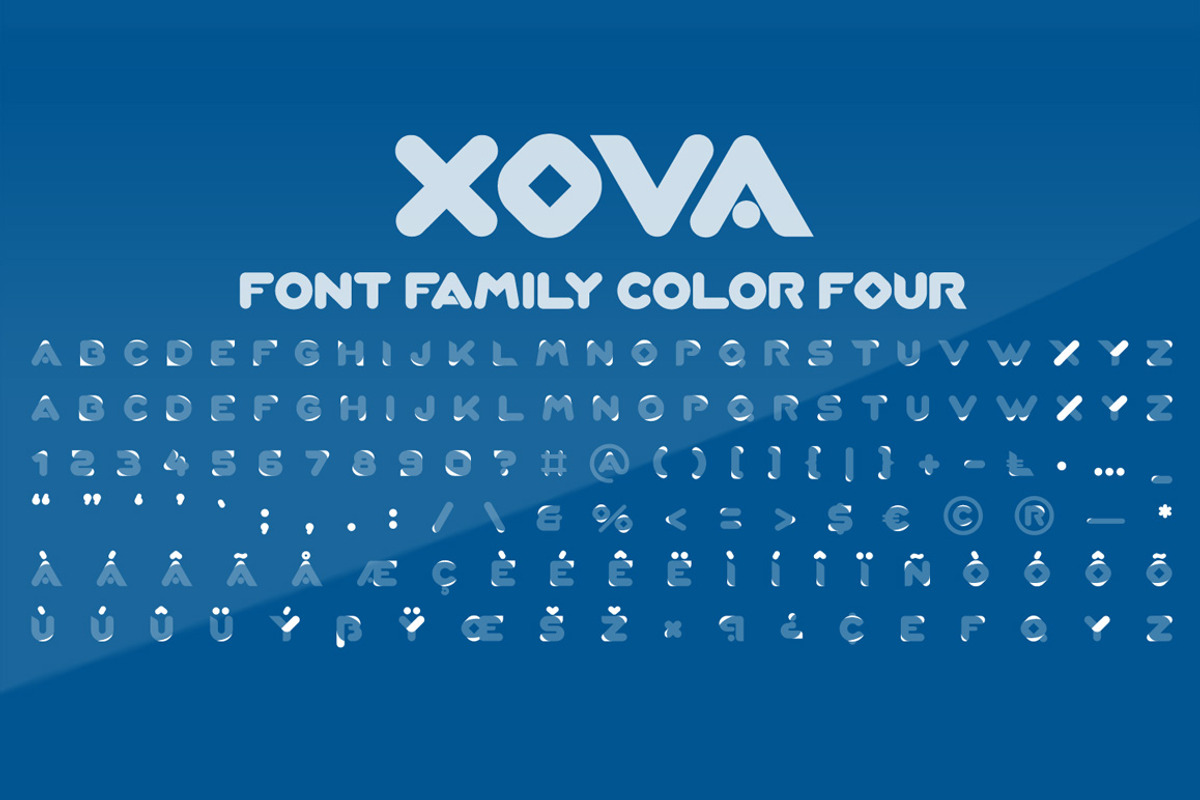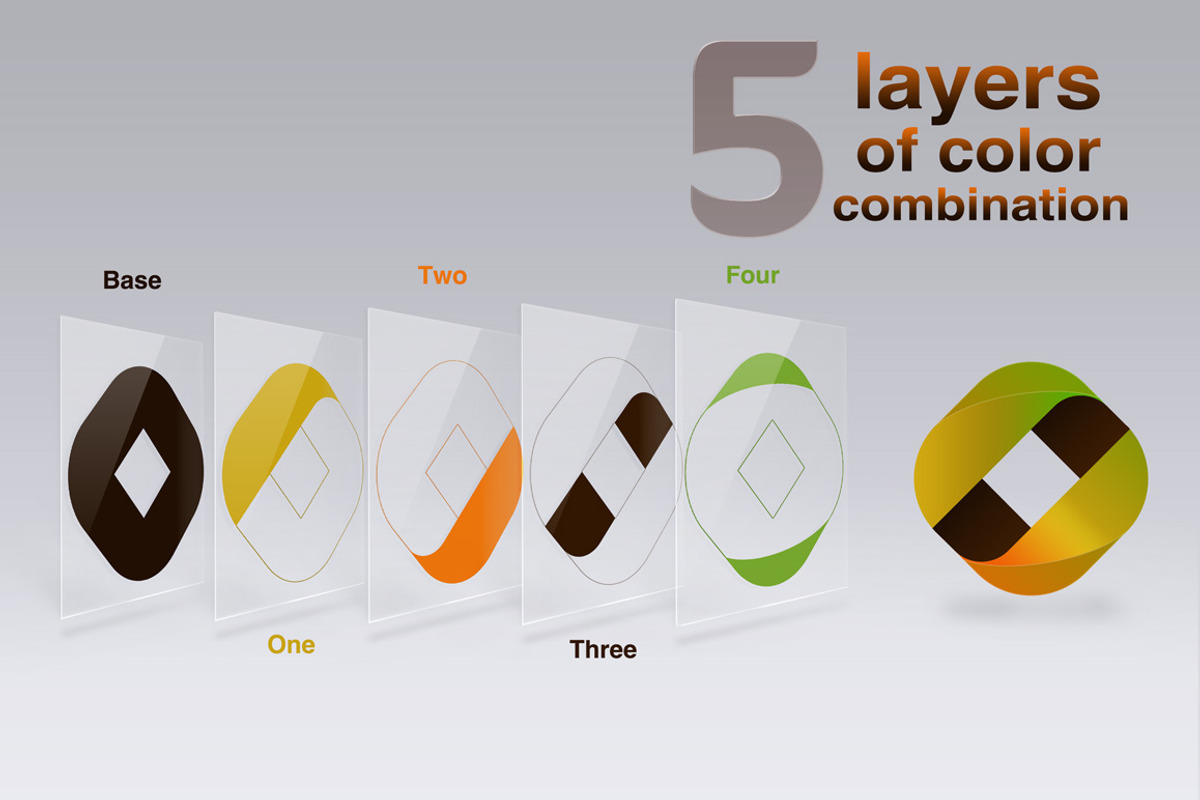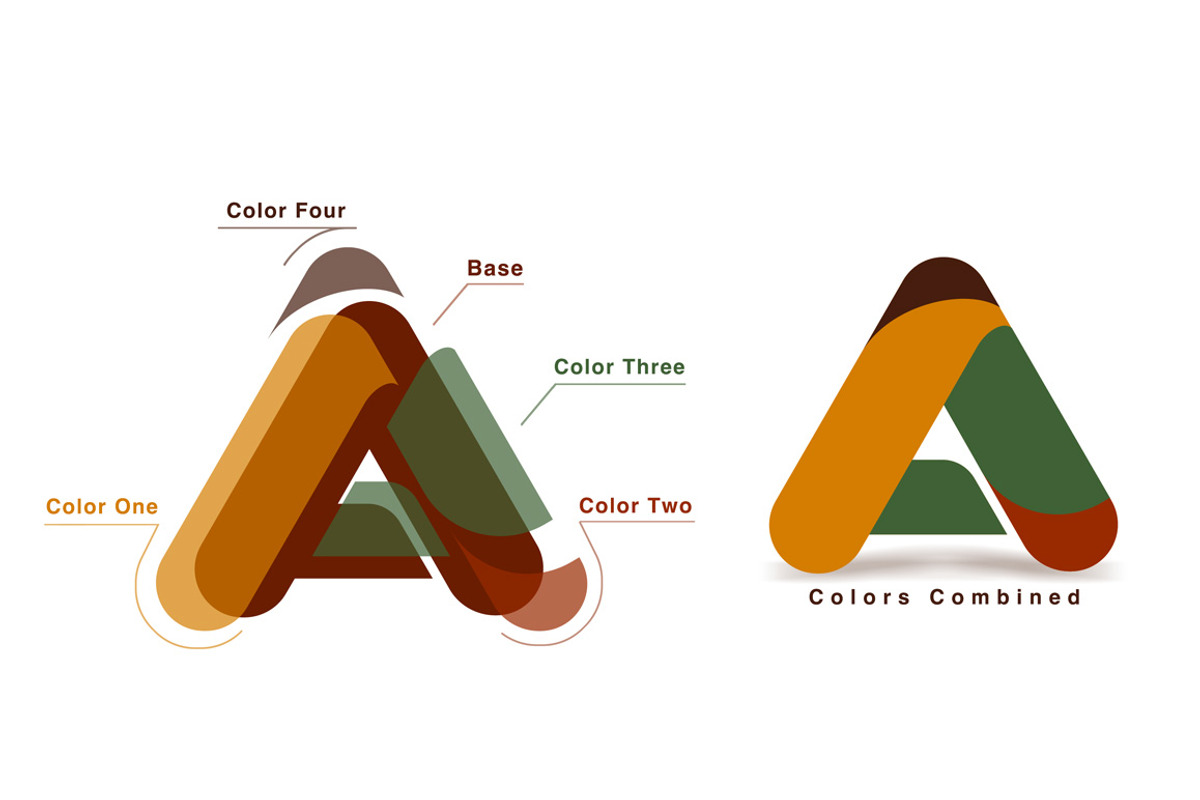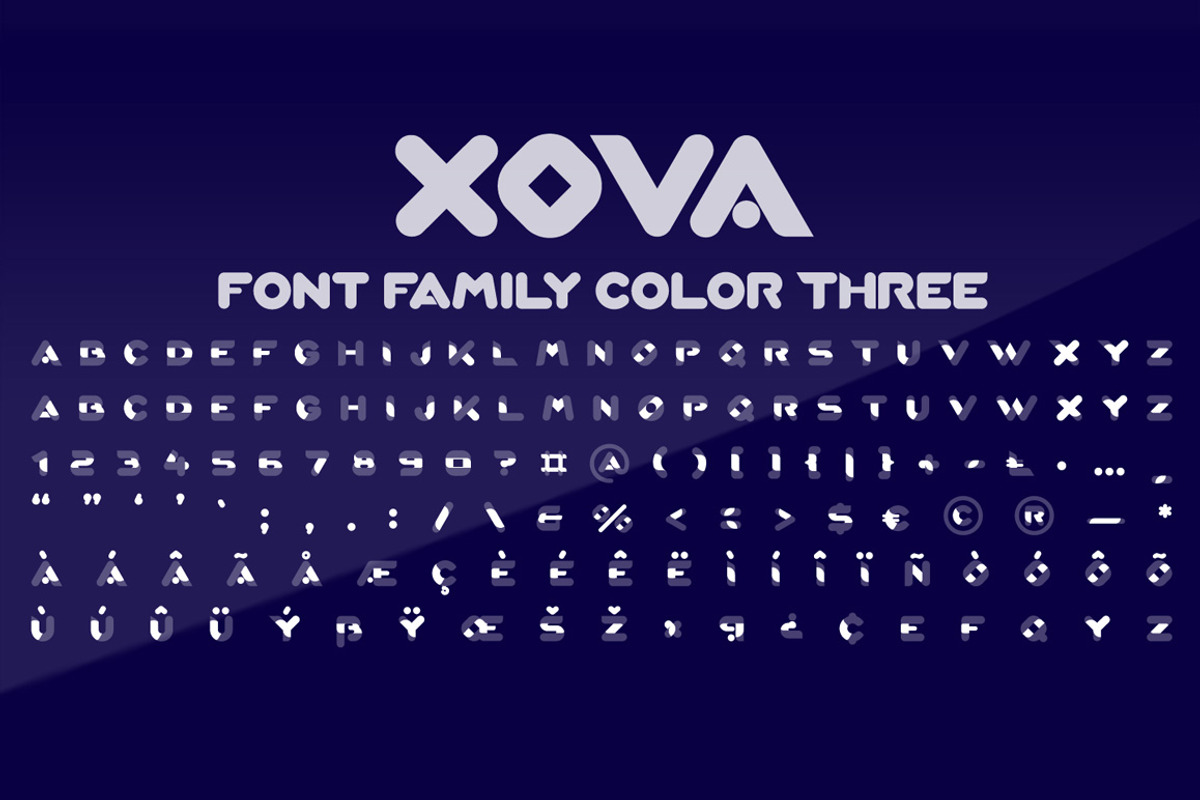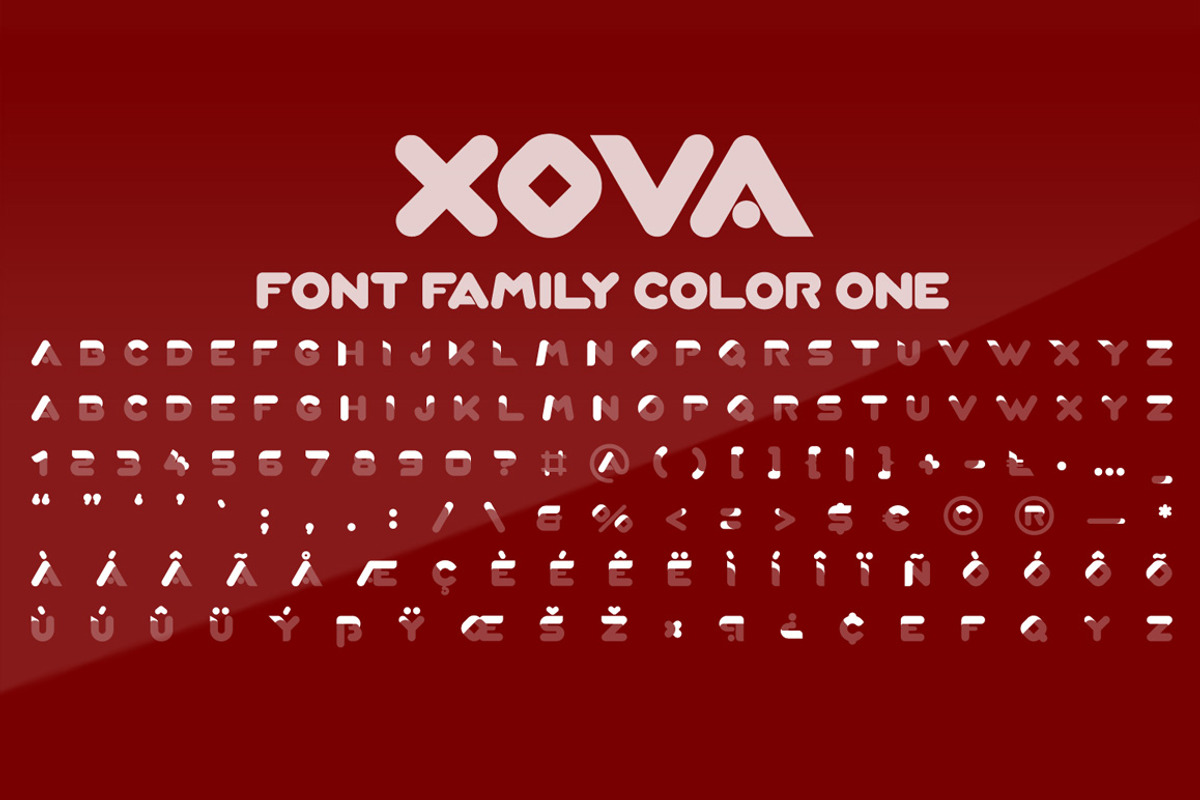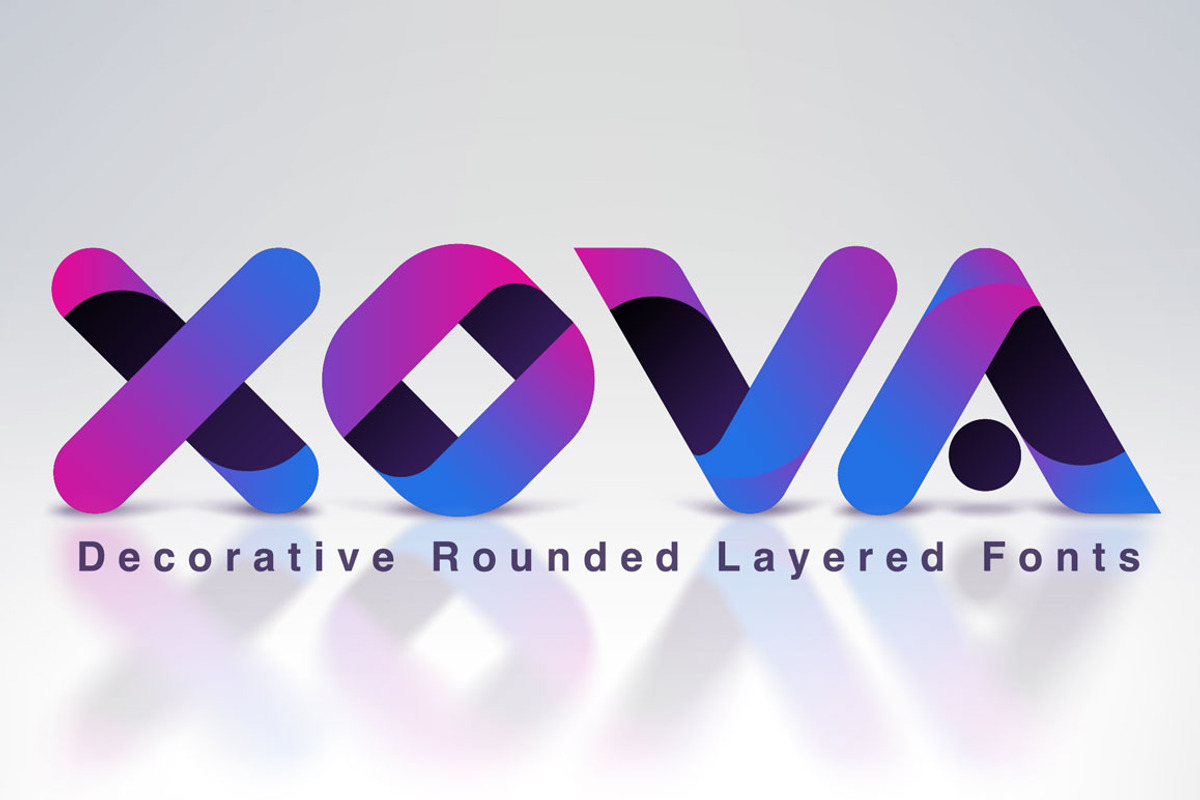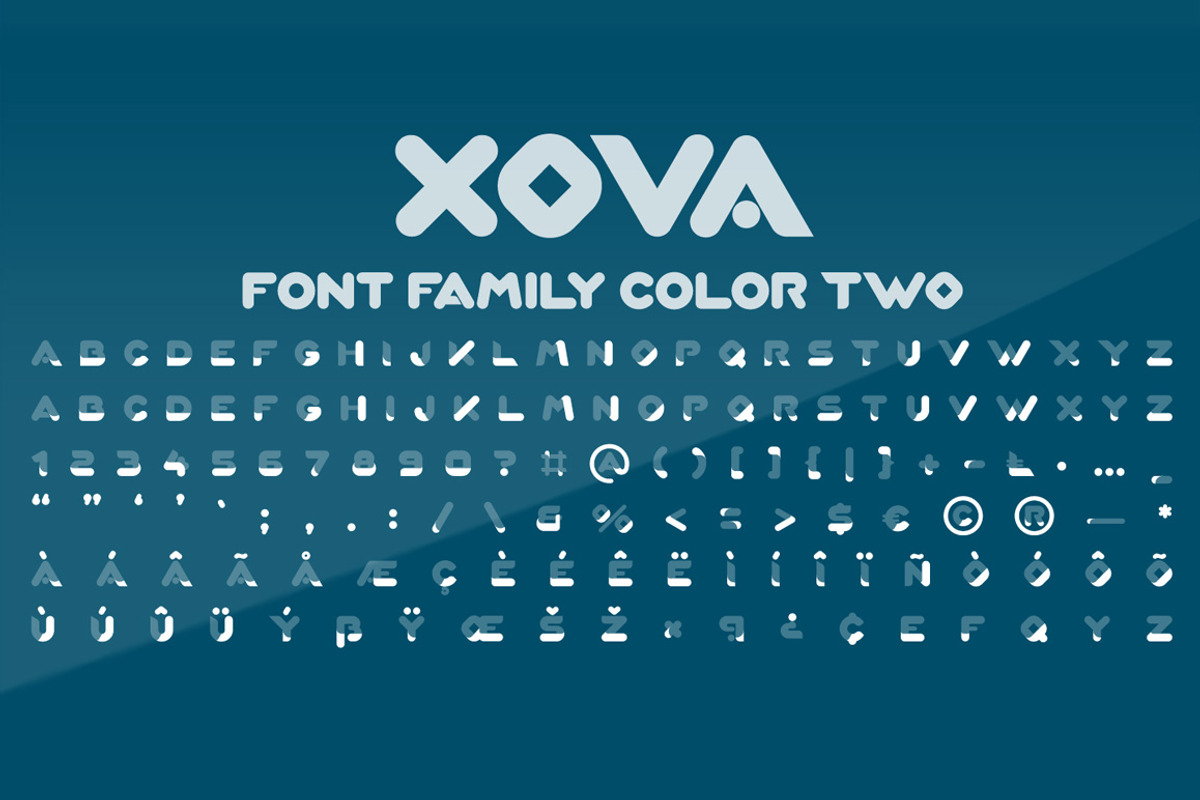
XOVA Layered Font Family
XOVA Layered Font Family by CRR | NTN is a font selected for branding, posters, packaging, typography.
- Each font contains the similar metrics, so when your title is set, copy and paste-in-place to create layers of different weights/styles to b
- It can be used alone and/or in layered and allows you adjust leading and kerning.
XOVA Layered Font Family by CRR | NTN fits naturally into Branding, posters, packaging, typography.